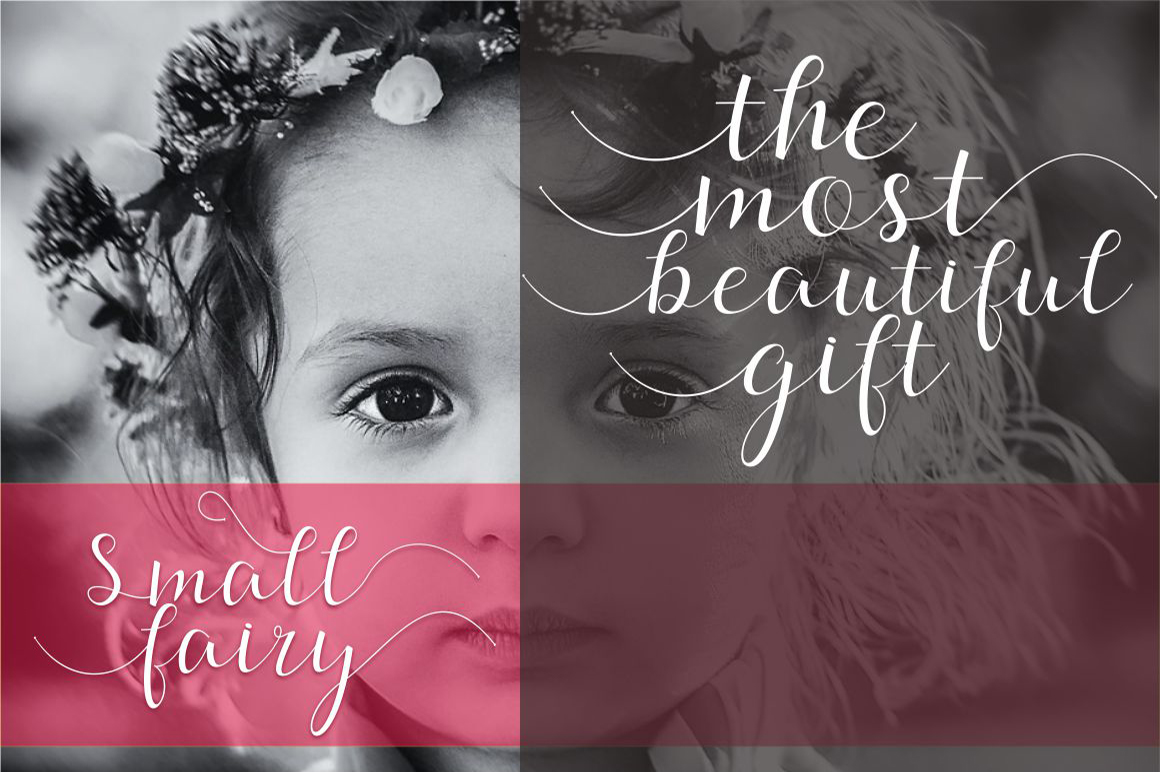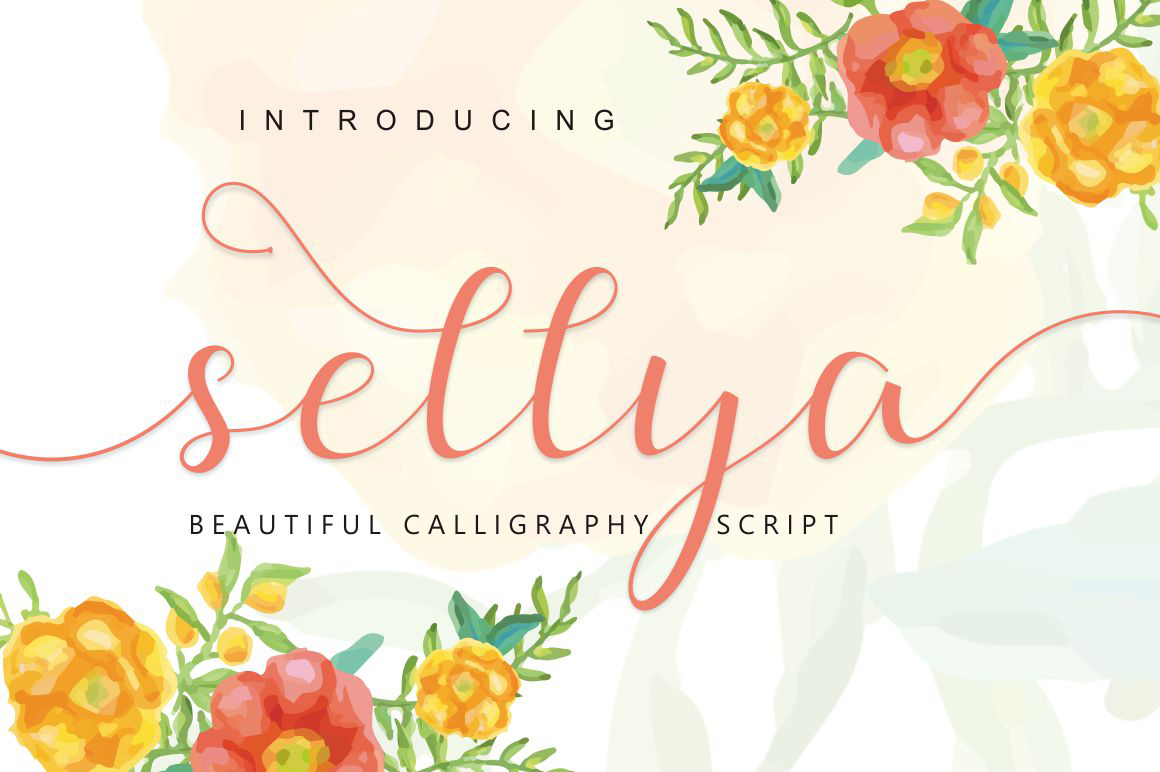
Sellya Script
Sellya Script Font
Sellya a new fresh & modern script with a handmade calligraphy style, decorative characters and a dancing baseline! So beautiful on invitation like greeting cards, branding materials, business cards, quotes, posters, and more!!